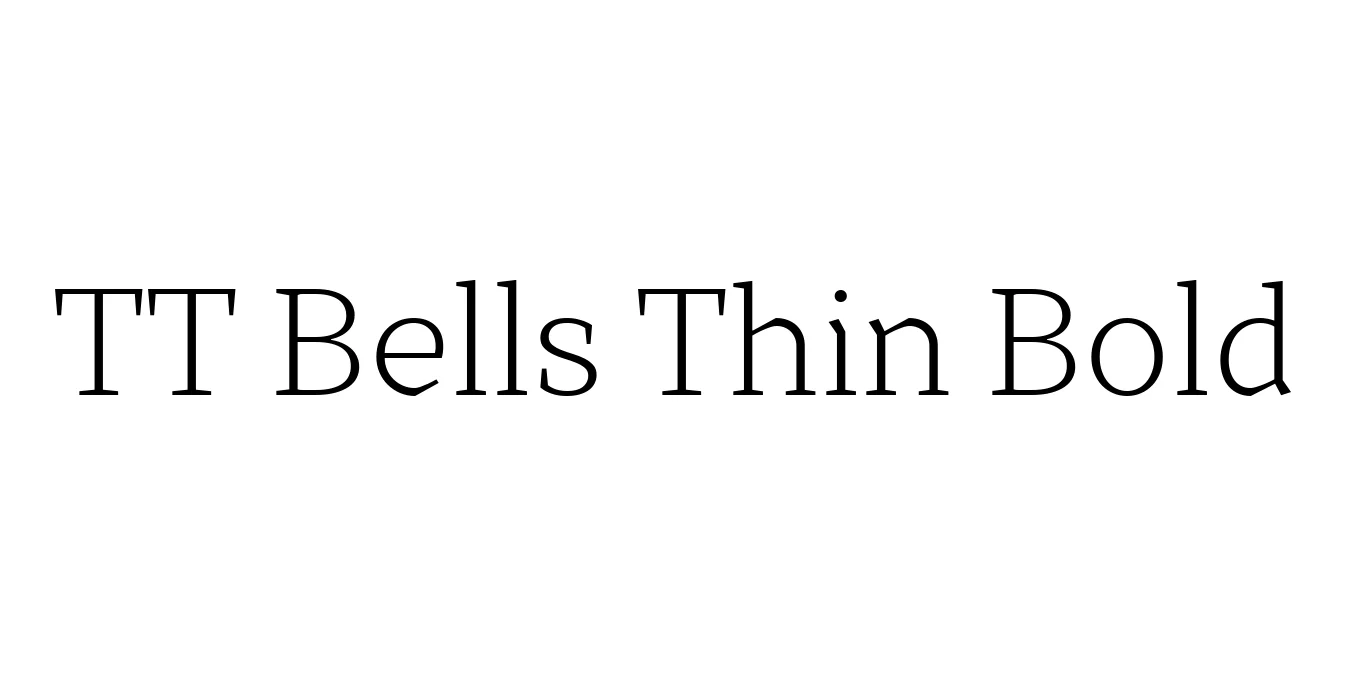
TT Bells Thin Bold
Designed by TypeType Team
TT Bells is a sophisticated serif font family designed by the TypeType foundry, drawing deep inspiration from the classical proportions of old-style serifs. The typeface is characterized by its elegant stroke contrast and refined terminals, which evoke a sense of timeless craftsmanship and historical prestige. Developed to bridge the gap between traditional book typography and modern digital clarity, it stands out for its readability and graceful aesthetic in both print and screen environments.
This typeface family, which includes various weights ranging from Thin to Bold, is meticulously engineered with a large x-height and balanced character widths. It was crafted to perform exceptionally well in long-form editorial content, while its more extreme weights serve as striking choices for high-end branding and titling. With its extensive OpenType features and multilingual support, TT Bells remains a versatile tool for designers looking to infuse their projects with a touch of classical elegance and professional authority.
TT Bells Thin Bold Best Uses
Perfect for magazines, journals, and long-form literature due to high legibility.
Ideal for luxury brands and corporate identities that require a sense of heritage.
Adds a sophisticated and trustworthy feel to professional landing pages.
Excellent for high-contrast headlines in premium marketing materials.